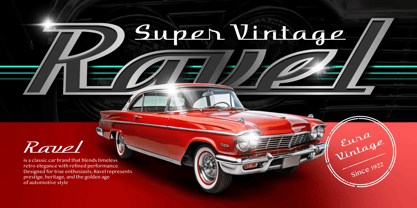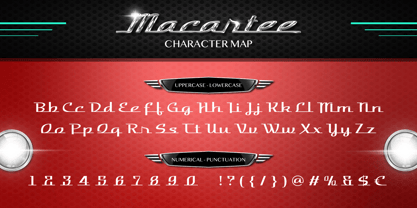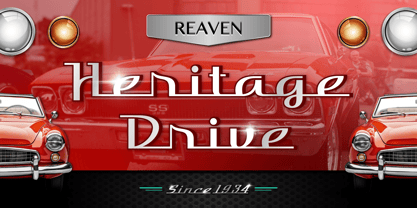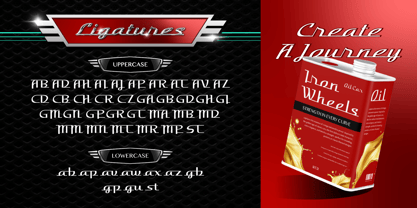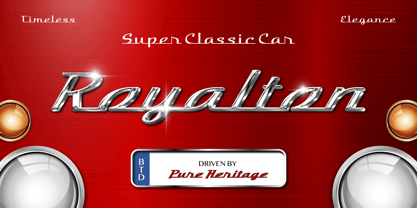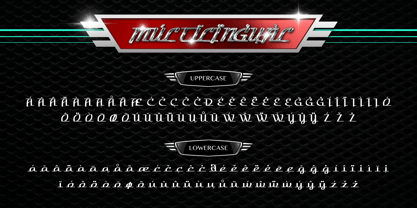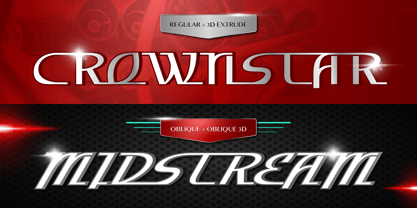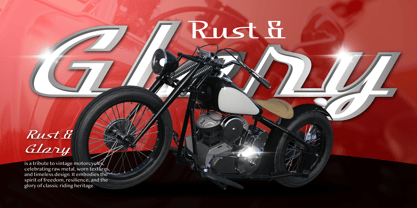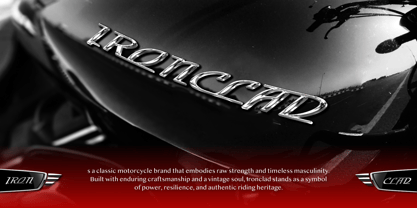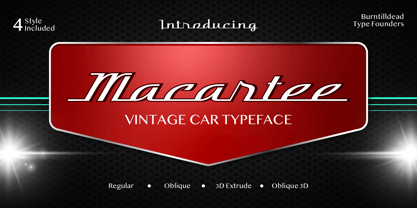
Macartee
The Macartee Font Family was designed by Eric Kurniawan and published by Burntilldead. Macartee contains 4 styles and family package options. More about this family
Meet Macartee, a bold vintage typeface inspired by classic car culture. With its sleek lines, smooth curves, and a touch of retro flair, this font brings back the golden era of automotive design. Macartee feels like a shiny emblem you’d find on the hood of a vintage ride—fast, stylish, and full of character.
This typeface comes in 4 styles (Regular, Oblique, 3D Extrude, and Oblique 3D), giving you flexibility whether you want a clean modern look or a powerful 3D statement. Perfect for logos, posters, badges, and any project that needs a dash of speed and retro energy.
If you’re looking for a typeface that combines vintage aesthetics with a modern edge, Macartee is ready to hit the road.